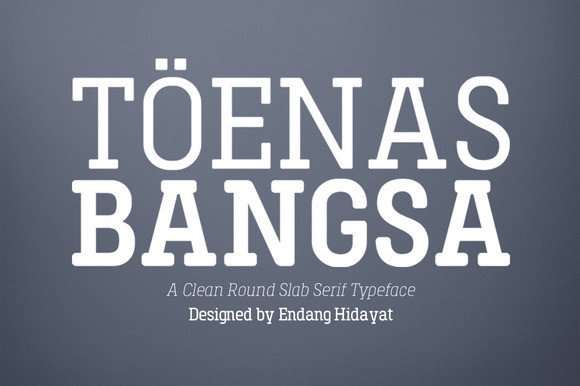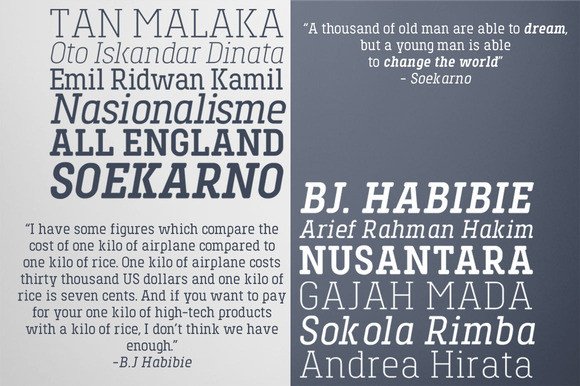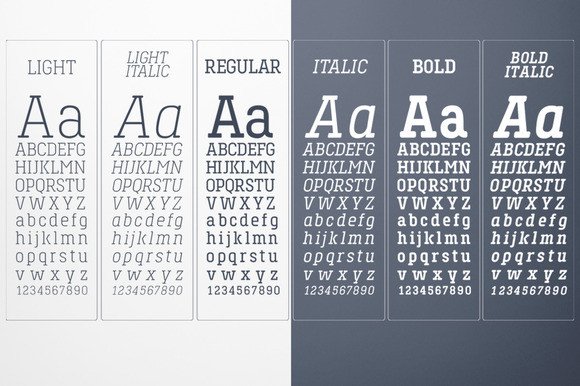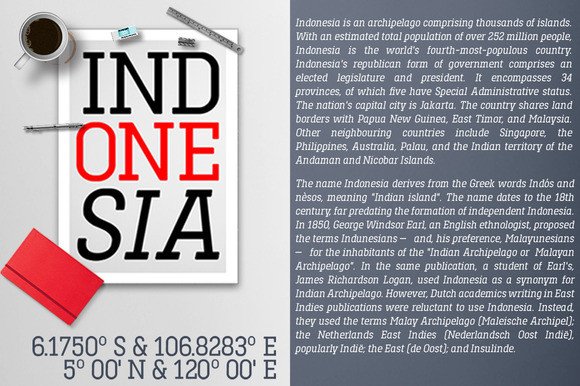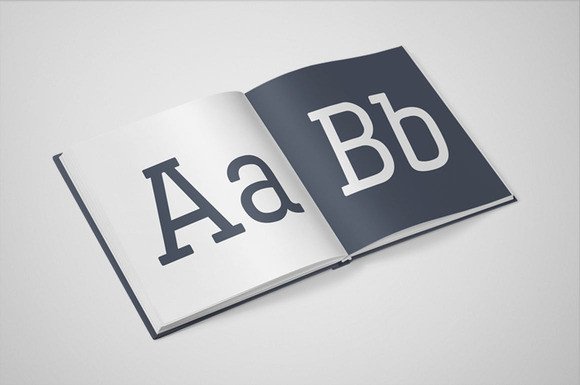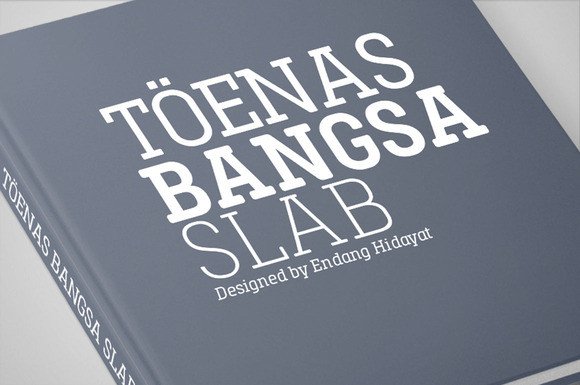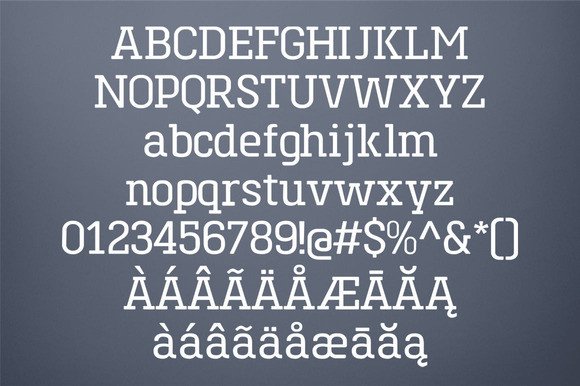
Toenas Bangsa
Toenas Bangsa: A Clean and Modern Slab Serif Font
Toenas Bangsa is a clean slab serif font that masterfully blends traditional slab serif design with contemporary lettering styles. This unique combination results in a super clean font that’s easy on the eyes and versatile enough for both digital and print applications.
Key Features of Toenas Bangsa
• Clean Design: Offers a perfect balance between readability and cleanness
• Versatile Application: Suitable for both digital and print projects
• Modern Twist: Combines old slab serif style with modern lettering techniques
Development Process
Toenas Bangsa was meticulously designed and developed in Jakarta, Indonesia by the Bang Kumis Type Foundry. The creators carefully optimized the font to achieve an ideal balance between readability and visual appeal, making it a standout choice for designers seeking a clean, modern slab serif.
Ideal Uses for Toenas Bangsa
This font’s clean and modern aesthetic makes it particularly well-suited for:
• Contemporary branding projects
• Digital interfaces and website designs
• Print materials requiring high legibility
• Editorial layouts seeking a fresh, clean look
Comparison with Other Slab Serif Fonts
While Toenas Bangsa shares characteristics with other slab serifs like Tecnica Slab Family, its unique blend of traditional and modern elements sets it apart. Unlike more playful options such as Klub Katz, Toenas Bangsa offers a more refined and versatile aesthetic suitable for a wide range of professional applications.
When incorporating Toenas Bangsa into your designs, consider the following tips:
• Use it for both headlines and body text to maintain a consistent, clean look
• Pair with sans-serif fonts for contrast in more complex layouts
• Experiment with different sizes to create hierarchy while maintaining readability
Toenas Bangsa is an excellent choice for designers looking for a clean, modern slab serif that bridges the gap between traditional and contemporary design. Its optimized balance of readability and cleanness makes it a versatile tool for various design projects, from logo designs to editorial layouts.
Explore how Toenas Bangsa can elevate your design projects with its clean, modern aesthetic. Whether you’re working on digital interfaces or print materials, this font offers the perfect blend of tradition and innovation to make your typography stand out.